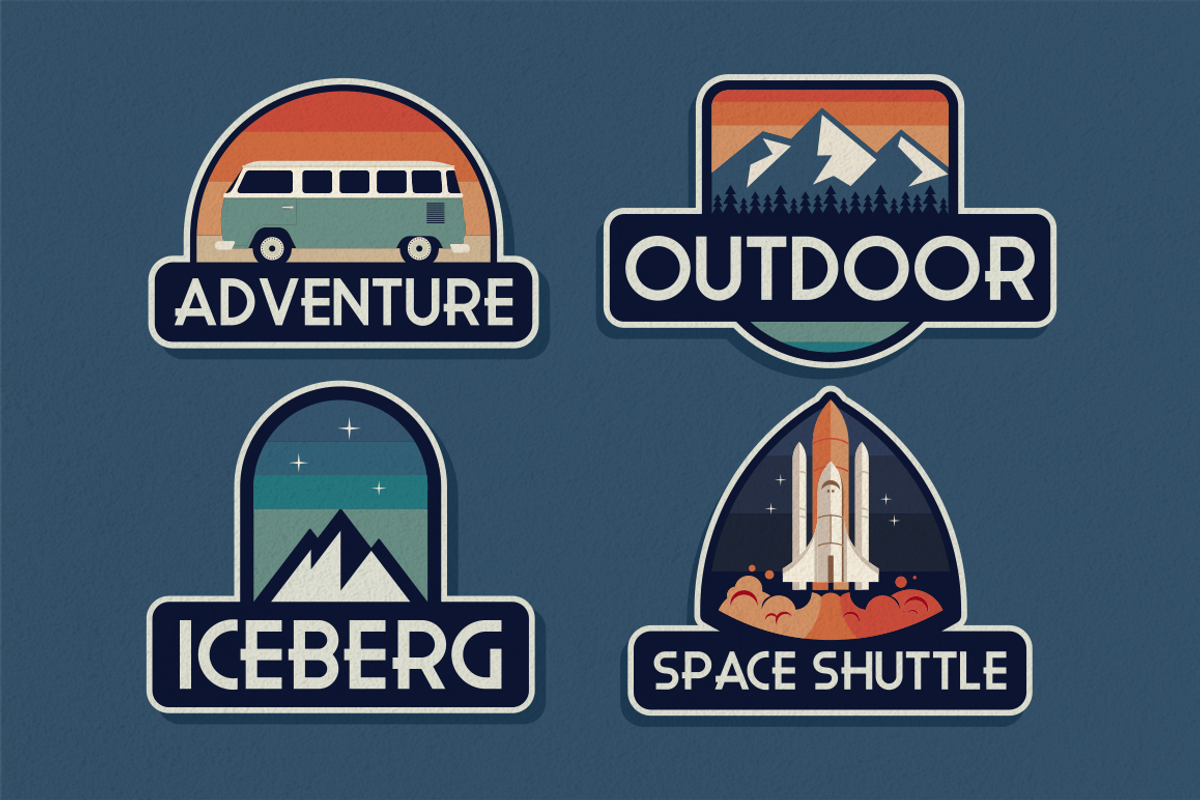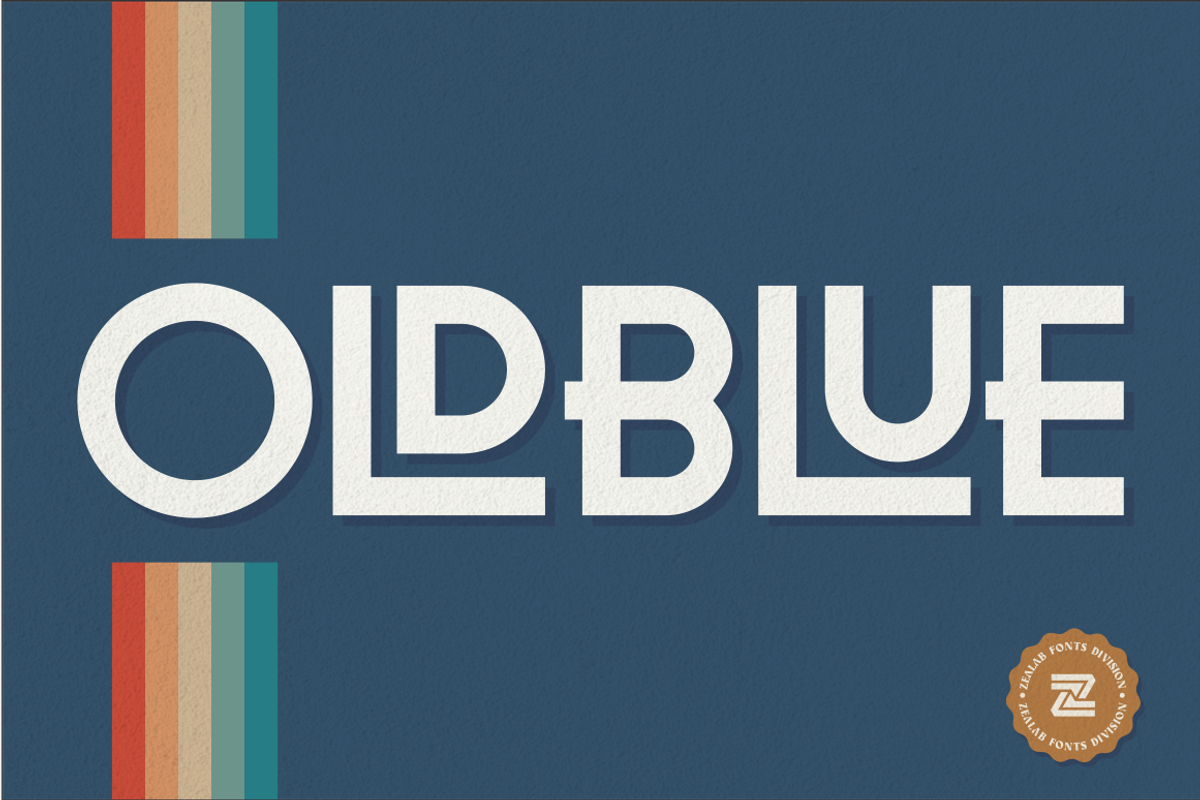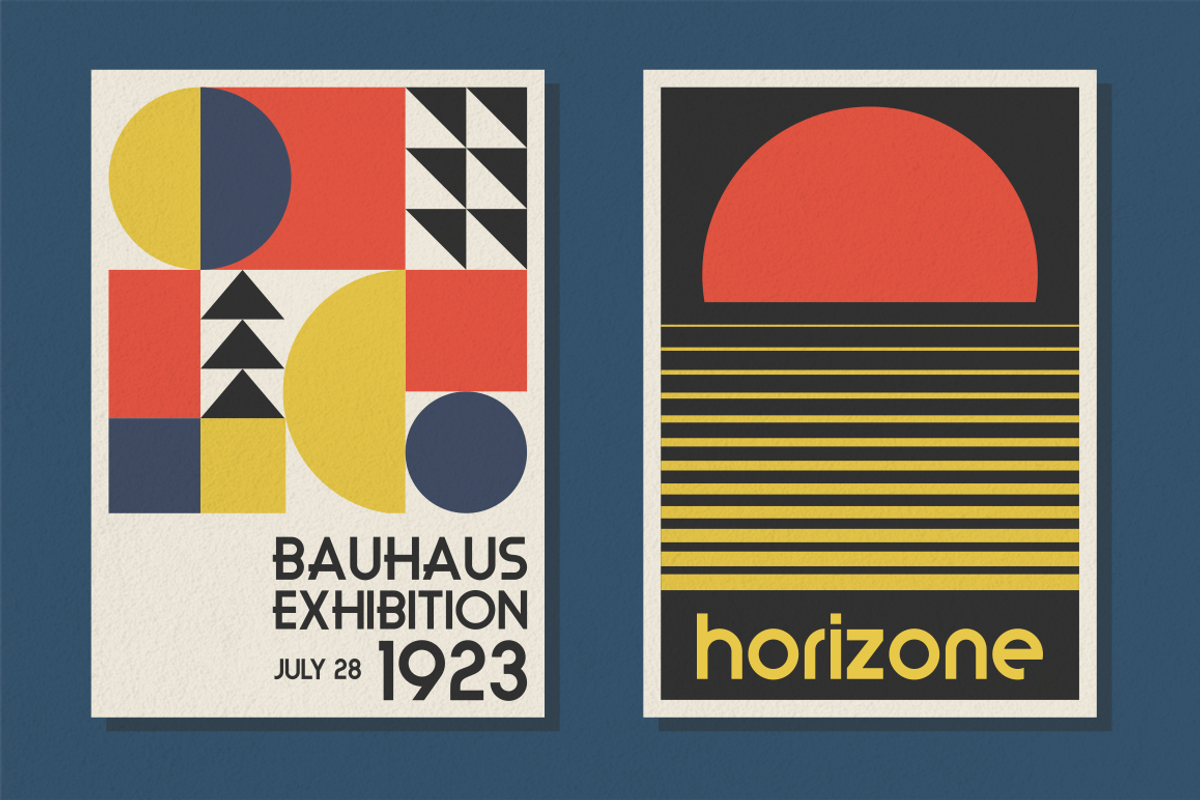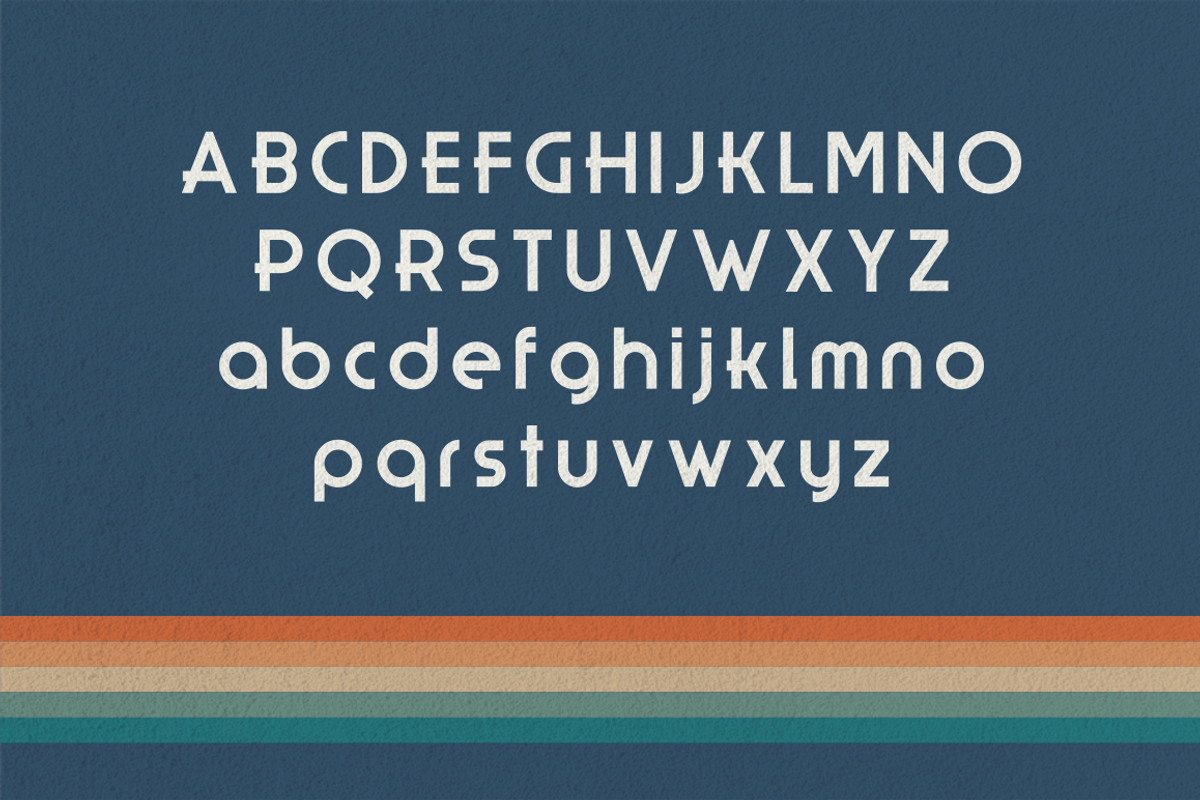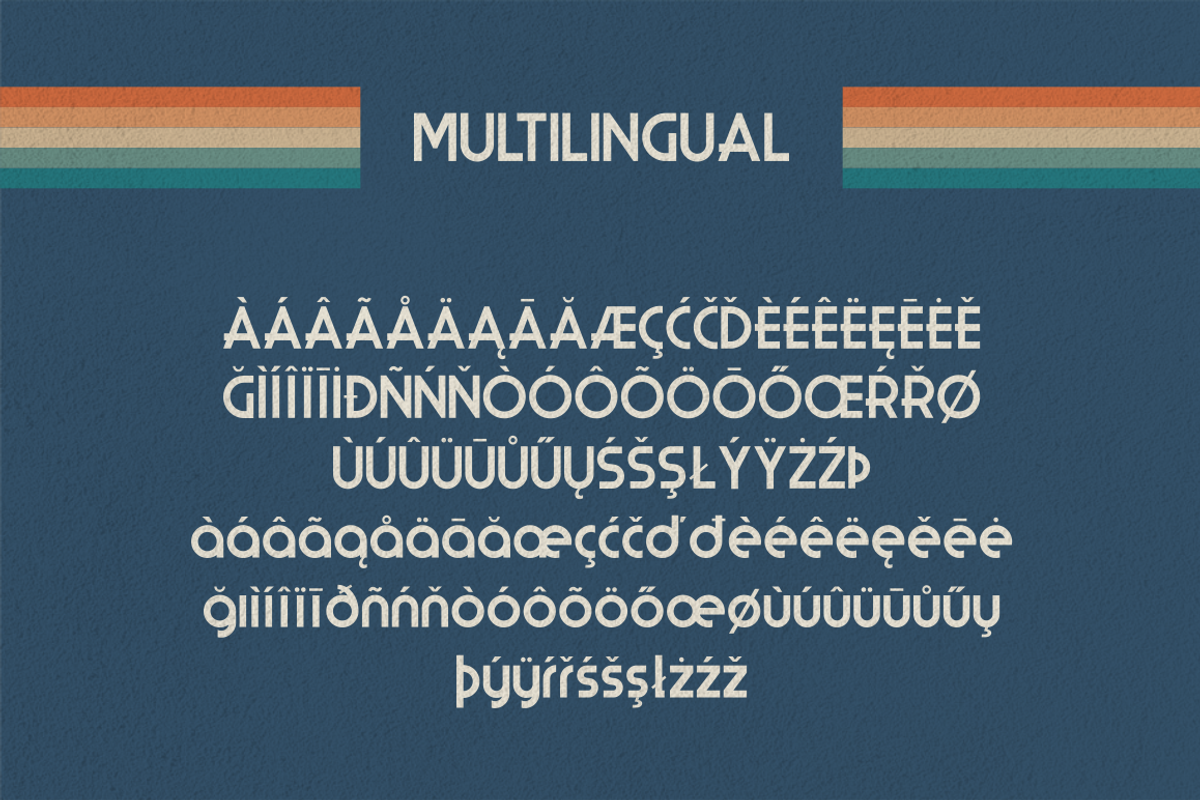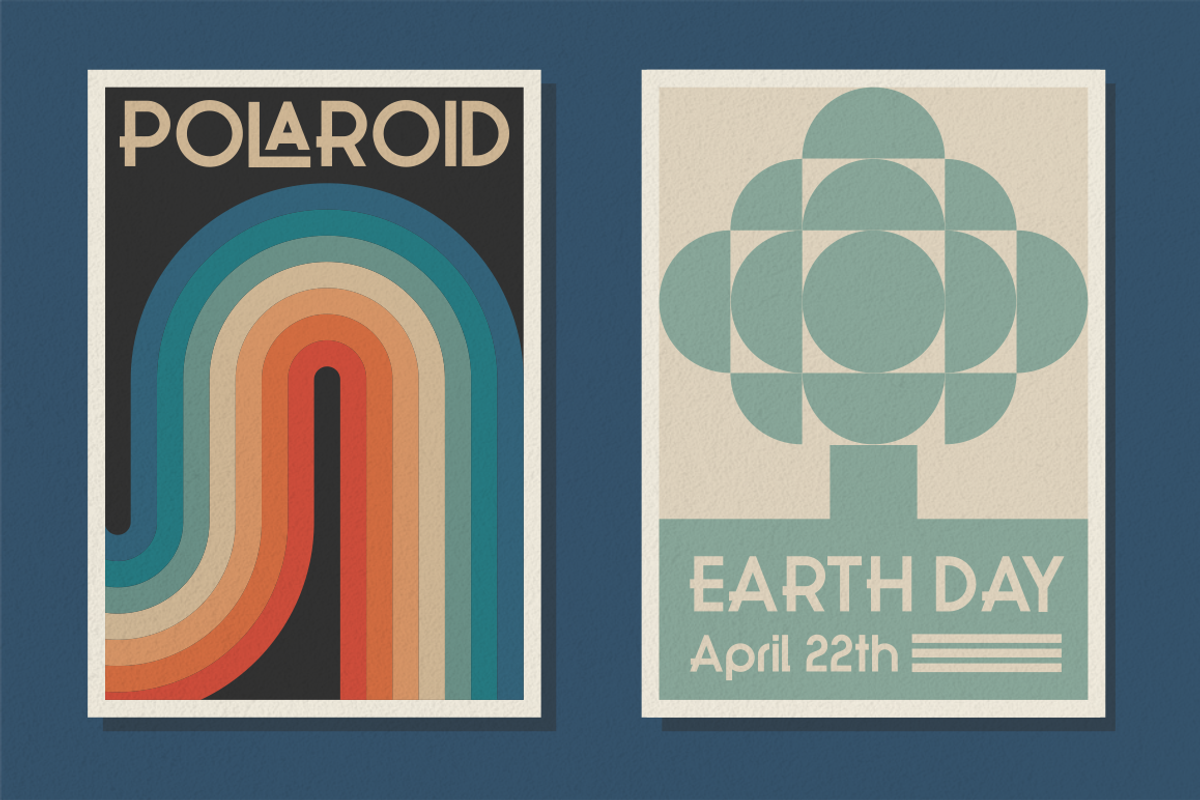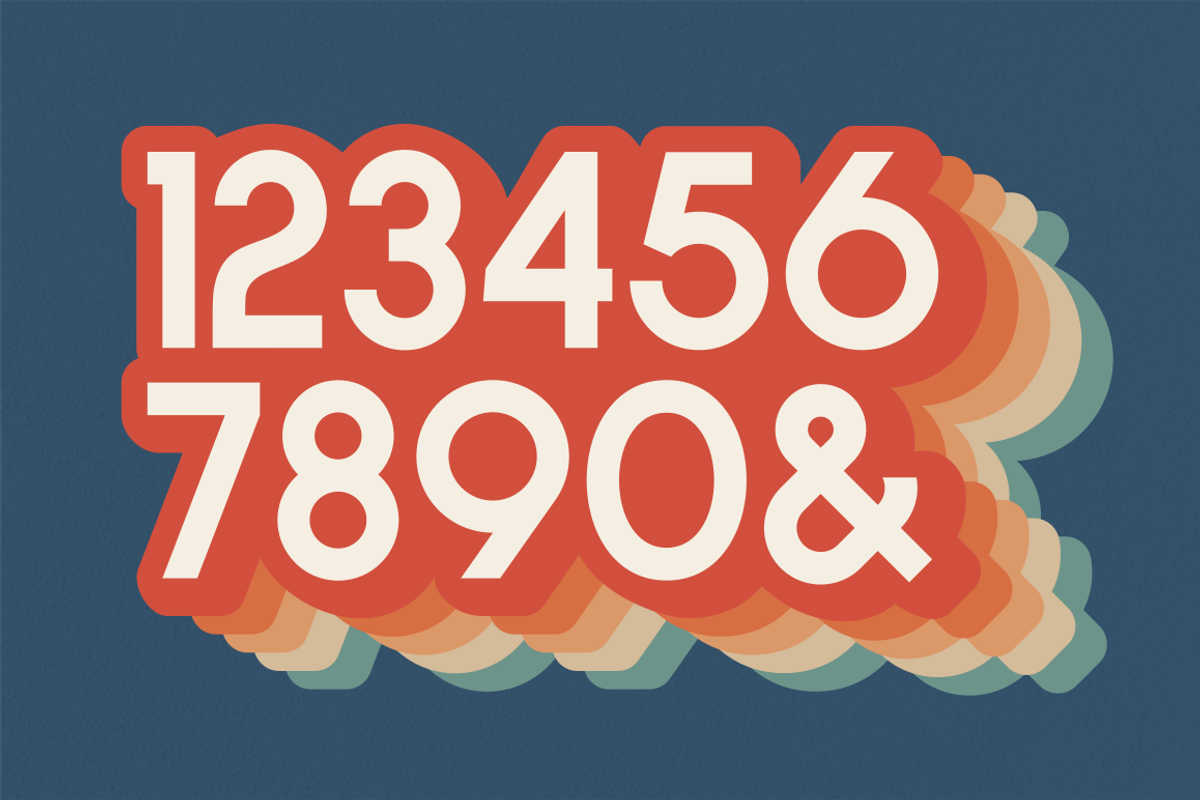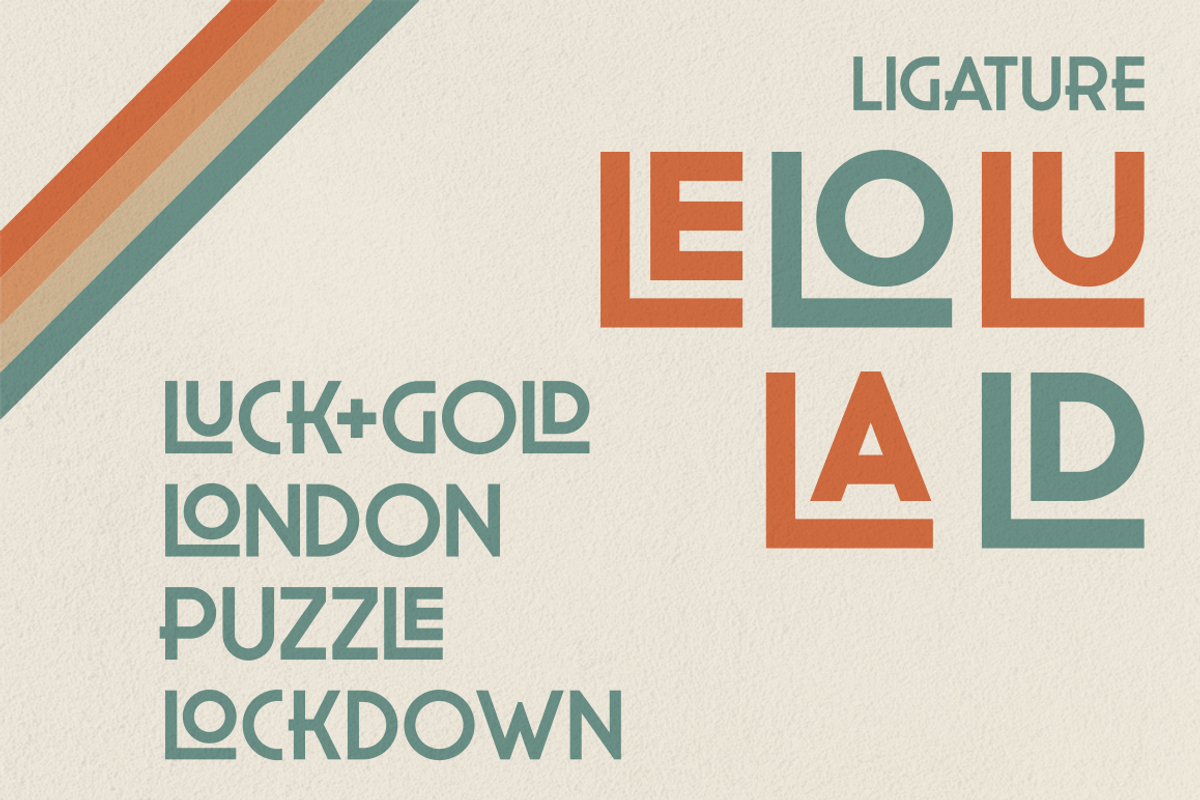
OLDBLUE
OLDBLUE is a playful and elegant retro font, was designed as a display type for titles, headlines, and posters and will work well with any retro execution. Primarily it is characterized by a modern look with straight shapes, but on closer view, you will notice its subtle connection to retro type design .
included uppercase, lowercase, ligature and also Multiple Languages Supported